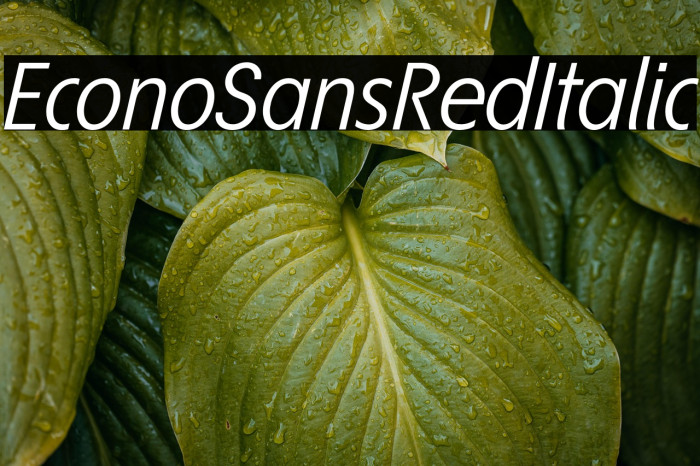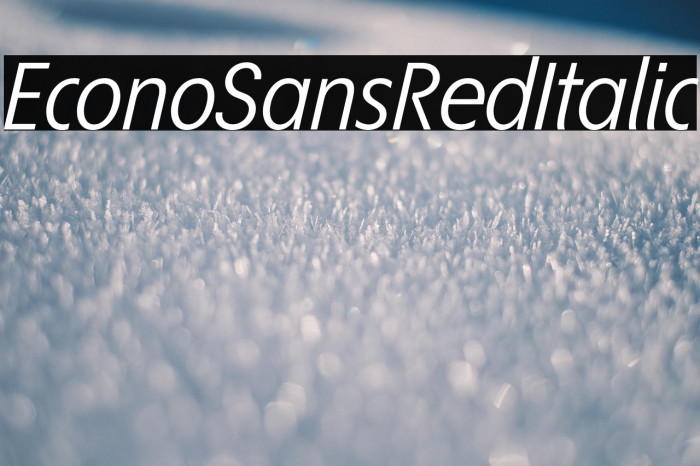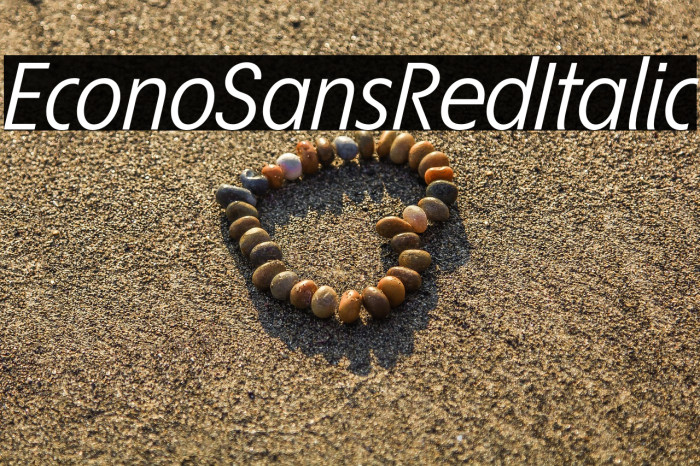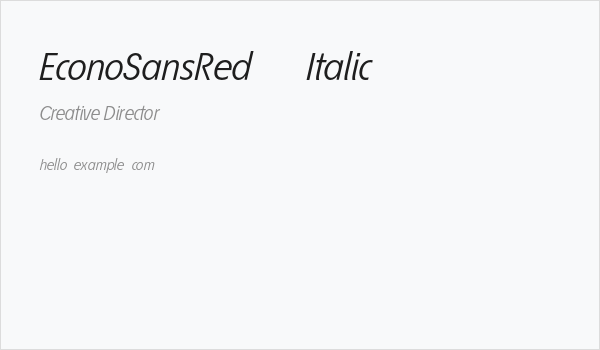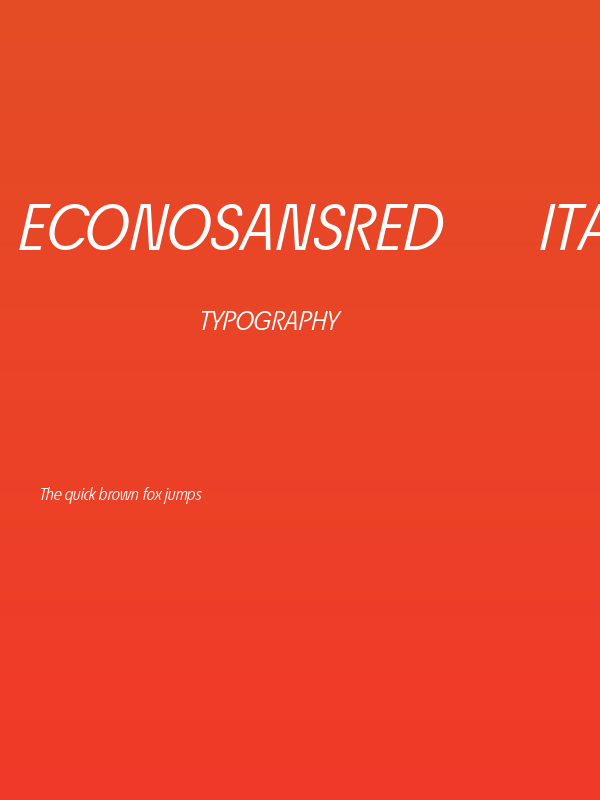
EconoSansRed-56Italic Font
EconoSansRed-56Italic Description
This font features a sleek and modern sans-serif design with a distinct italic slant, giving it a dynamic and forward-leaning appearance. The characters are clean and streamlined, with consistent stroke widths that contribute to a uniform look. The uppercase letters are tall and commanding, while the lowercase letters maintain a balanced and harmonious proportion. The numerals are clear and legible, making them suitable for various applications. Special characters are included, maintaining the same stylistic coherence as the alphanumeric characters. The overall aesthetic is contemporary and professional, making it versatile for a range of design projects.